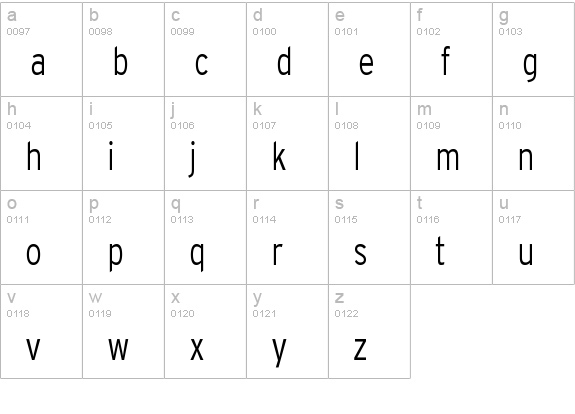
Interstate Light Cond Font Details
Interstate Light Cond is a refined, elegant, condensed-width variant in the Interstate typeface family \xE2\x80\x94 well suited to elegant body text, refined sub-headings, and luxury branding.
Introducing Interstate Light Cond, a captivating font that effortlessly blends elegance and versatility. Designed with meticulous precision, this font showcases a harmonious balance between modernity and traditionalism, making it the perfect choice for a wide range of design projects. With its slender and refined letterforms, Interstate Light Cond exudes a sense of sophistication that is both captivating and timeless. Its condensed proportions allow for efficient use of space, making it ideal for projects that require a sleek and compact typography solution. Whether it's creating striking headlines, designing sleek logos, or crafting eye-catching posters, Interstate Light Cond effortlessly captures attention and leaves a lasting impression. Its legibility remains unparalleled, even at smaller sizes, ensuring that every detail is conveyed with clarity and precision. One of the most remarkable features of Interstate Light Cond is that it is available for free download at FontsMarket.com. Now, designers and creatives around the world can access this exceptional font without any limitations or restrictions. This incredible offer allows for endless possibilities in unleashing your creativity and adding a touch of sophistication to your projects. The versatility of Interstate Light Cond extends beyond its aesthetic appeal. Its comprehensive character set includes uppercase and lowercase letters, numerals, punctuation marks, and an array of special characters, ensuring that you have all the tools to bring your vision to life. In addition to its remarkable design and extensive character set, Interstate Light Cond also boasts excellent readability across various platforms and mediums. Whether it's on digital screens or in print, this font maintains its clarity and legibility, ensuring that your message is delivered with impact and precision. Elevate your designs to new heights with Interstate Light Cond. Embrace its timeless elegance, effortless versatility, and remarkable legibility. Download this incredible font for free at FontsMarket.com and unlock a world of possibilities for your next design project.